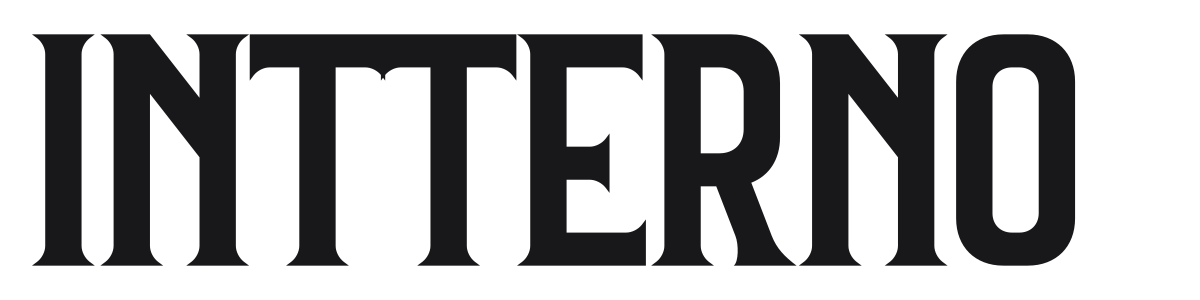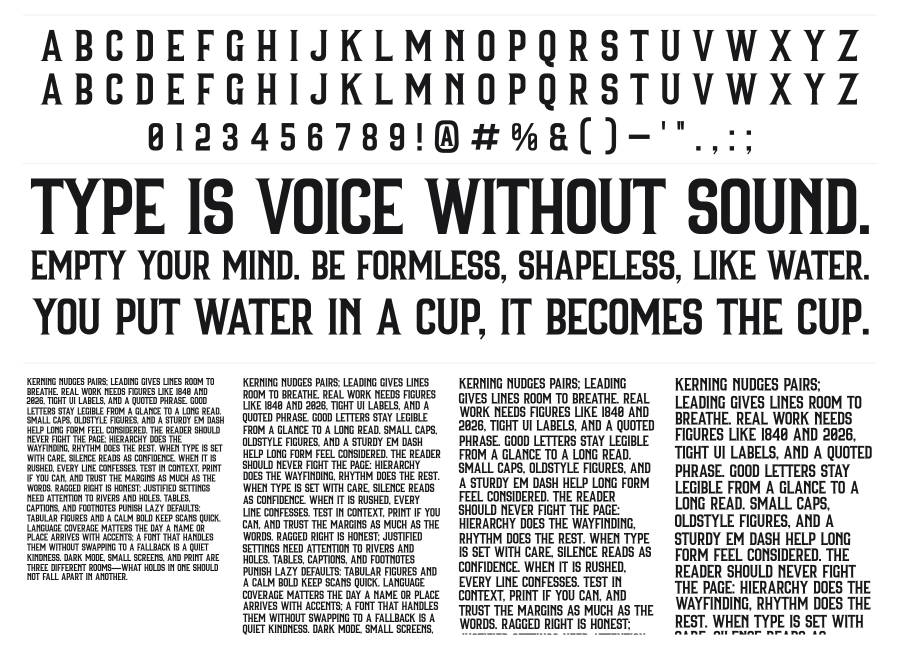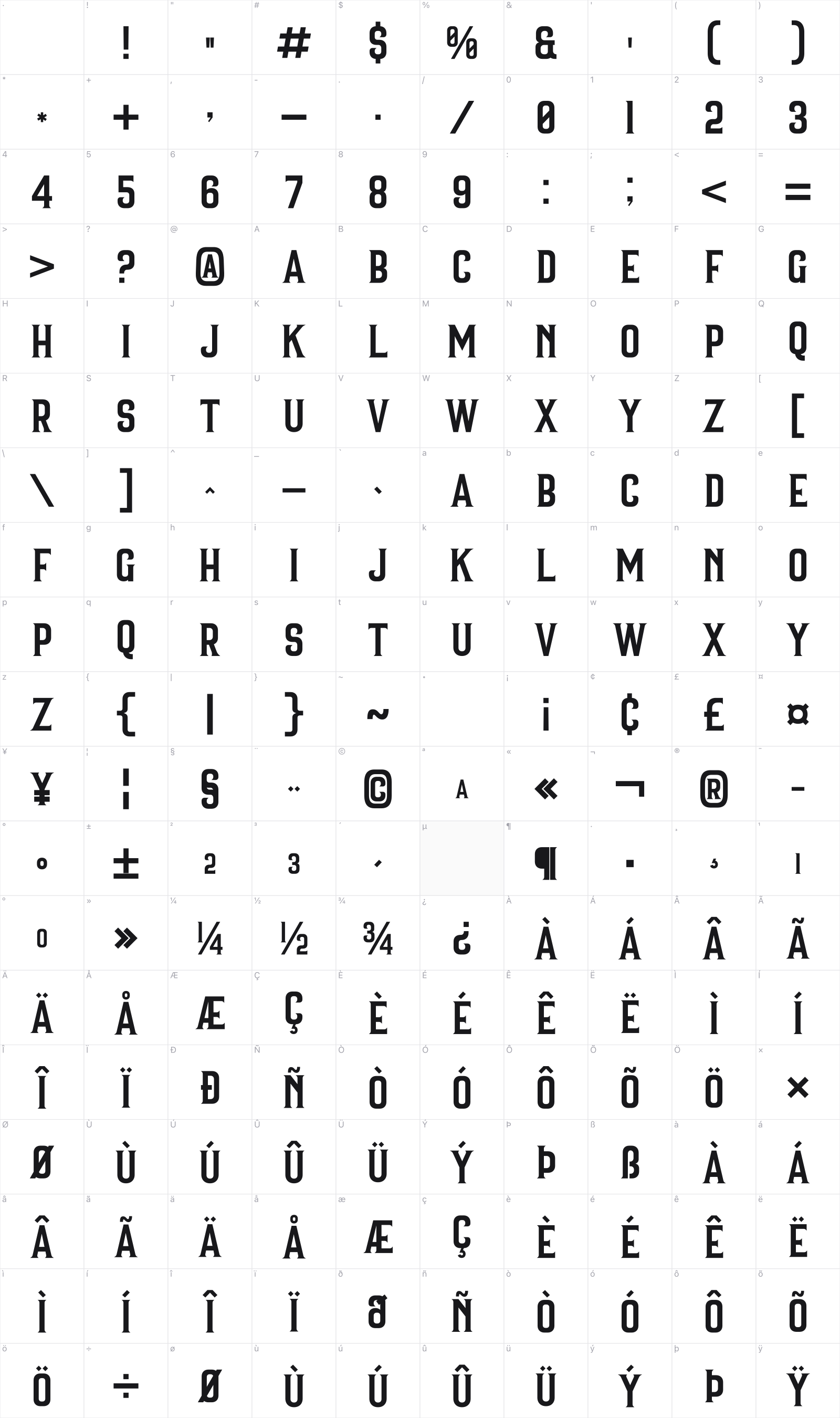
Intterno
Intterno is a boldly condensed serif with sharp wedge serifs and strong stroke contrast packed into a tall, narrow frame. The compressed proportions and heavy weight give it commanding presence at headline sizes, drawing from Art Deco and early 20th-century display traditions. It reads with authority in sports branding, editorial headers, and poster work.